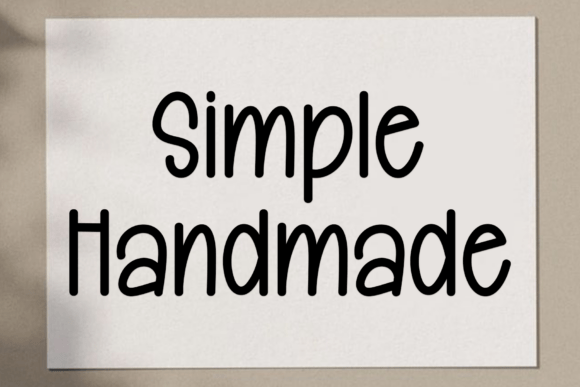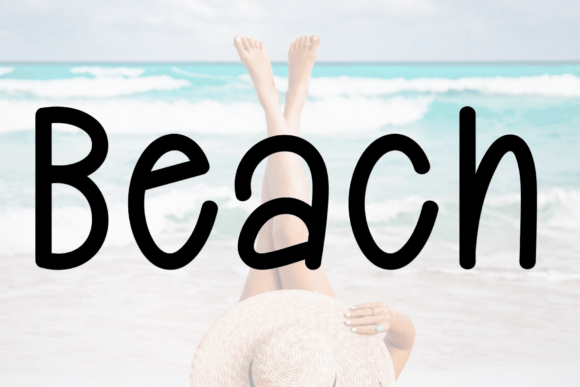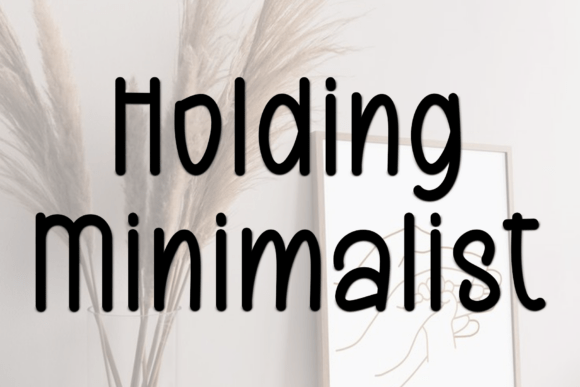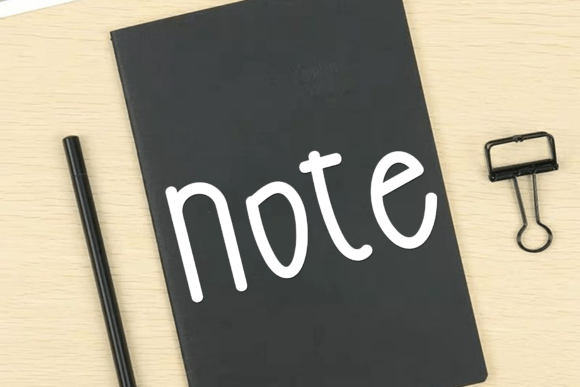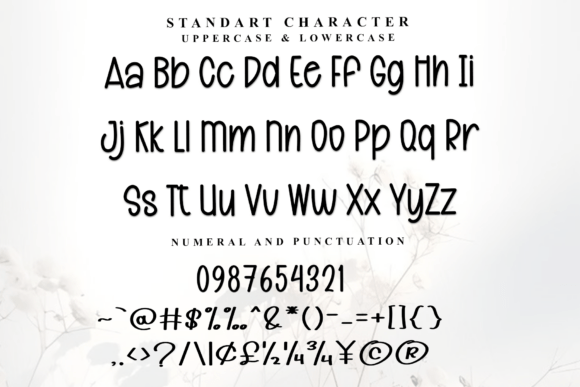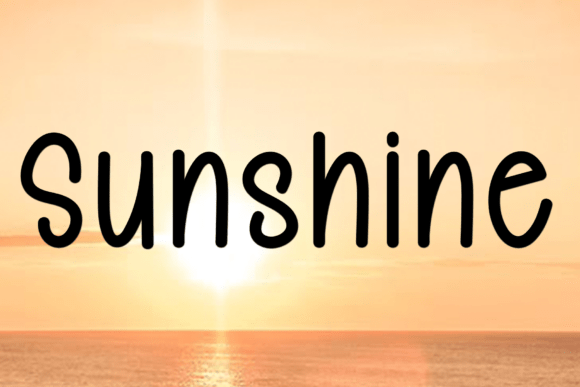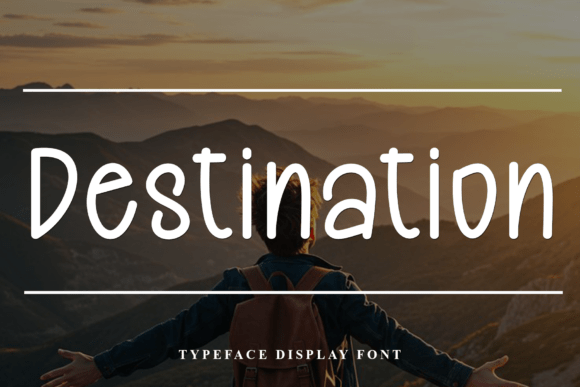
Discover the Ultimate Travel Companion: Destination Font
Are you a designer, crafty enthusiast, or travel blogger looking for the perfect font to capture the essence of adventure and exploration? Look no further than Destination Font, a playful and friendly display font that’s sure to bring a spirit of positivity to your projects.
What is Destination Font?
Destination Font is a clean, hand-drawn display font designed to evoke the feeling of excitement and freedom that comes with traveling. Its rounded strokes and casual character make it an ideal choice for creating eye-catching travel posters, adventure blogs, social media graphics, and lifestyle branding.
Key Features of Destination Font
- Playful and Friendly: Destination Font has a fun and approachable vibe that’s perfect for brands and designers who want to convey a sense of adventure and approachability.
- Clean and Hand-Drawn: The font’s clean lines and hand-drawn feel give it a unique, organic look that’s sure to stand out in any design.
- Rounded Strokes: The rounded strokes of Destination Font add a touch of warmth and friendliness to any design, making it perfect for travel and lifestyle brands.
- Casual Character: The font’s casual character makes it easy to pair with other fonts and design elements, giving you endless possibilities for creative expression.
Perfect for Travel and Lifestyle Brands
Destination Font is specifically designed with travel and lifestyle brands in mind. Its adventurous and carefree vibe makes it perfect for:
- Travel Posters: Create eye-catching posters that capture the essence of your next travel destination.
- Adventure Blogs: Add a touch of personality to your blog with a font that’s as adventurous as you are.
- Social Media Graphics: Make your social media graphics stand out with a font that’s fun, friendly, and engaging.
- Lifestyle Branding: Use Destination Font to create a brand identity that’s approachable, adventurous, and inspiring.
Why Choose Destination Font?
With so many fonts to choose from, why should you choose Destination Font? Here are just a few reasons:
- Unique and Eye-Catching: Destination Font is a one-of-a-kind font that’s sure to grab attention and make your designs stand out.
- Easy to Read: Despite its playful and casual feel, Destination Font is easy to read and understand, making it perfect for headlines and titles.
- Versatile: Destination Font can be used for a wide range of design projects, from travel and lifestyle branding to social media graphics and more.
Tips for Using Destination Font
Here are a few tips for getting the most out of Destination Font:
- Pair with Other Fonts: Experiment with pairing Destination Font with other fonts to create a unique and eye-catching design.
- Use for Headlines and Titles: Destination Font is perfect for headlines and titles, where its playful and friendly vibe can really shine.
- Experiment with Colors: Try out different colors and color combinations to find the perfect look for your design.
Destination Font is the perfect choice for designers, crafty enthusiasts, and travel bloggers who want to add a touch of adventure and positivity to their projects. With its playful and friendly vibe, clean and hand-drawn feel, and versatile design, Destination Font is sure to become your go-to font for all your travel and lifestyle branding needs.